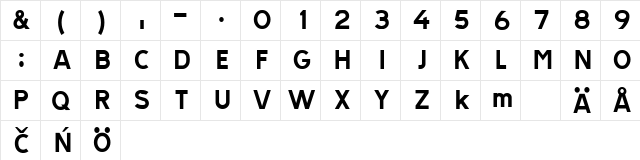
TRATEXPOSVERSAL POSVERSAL
Design Context for TRATEXPOSVERSAL Typeface
TRATEXPOSVERSAL takes a measured approach to typography — its balanced proportions and neutral character make it a reliable workhorse for both digital and print work.